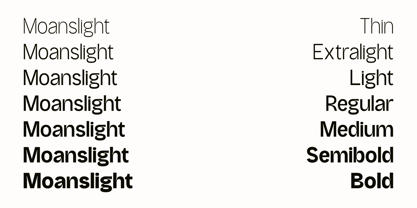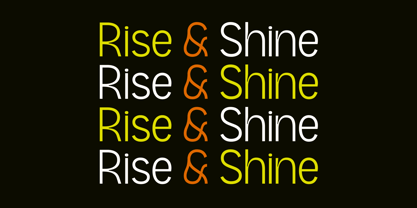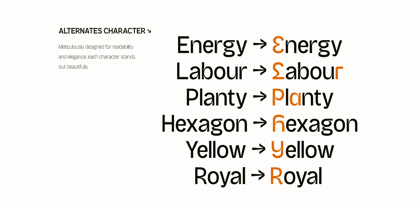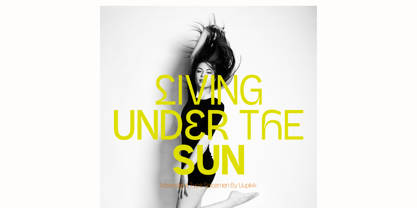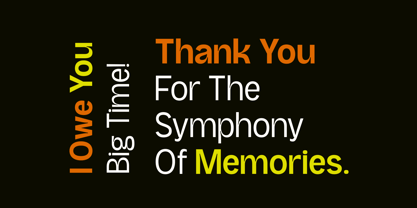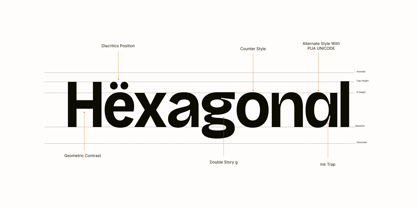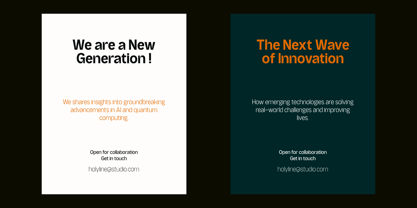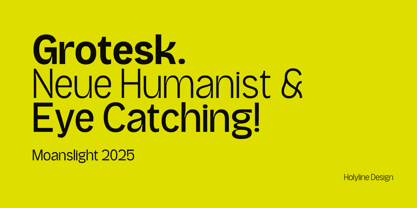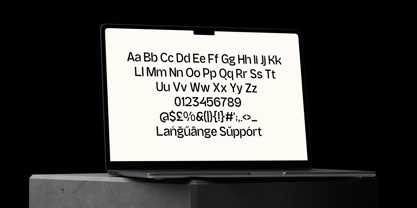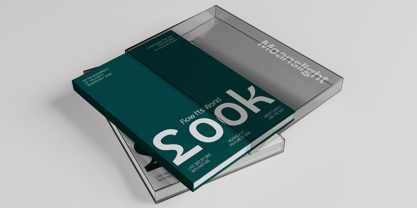
Moanslight
The Moanslight Font Family was designed by Bagus Beratha Wijaya and published by holyline design. Moanslight contains 7 styles and family package options. More about this family
Moanslight is a clean and contemporary sans serif display font that merges the clarity of modern grotesk with the refinement of neue typography. Inspired by neo-modern design, editorial layouts, and minimalist aesthetics, Moanslight is crafted for designers who seek precision with personality.
With 7 weights from thin to bold, it offers the flexibility to shift from subtle to striking. Its sharp structure and balanced rhythm make it ideal for headlines, branding, publishing, and digital interfaces, delivering both elegance and impact. Moanslight brings a sophisticated voice to any visual language—where modern style meets timeless function. Happy creating !